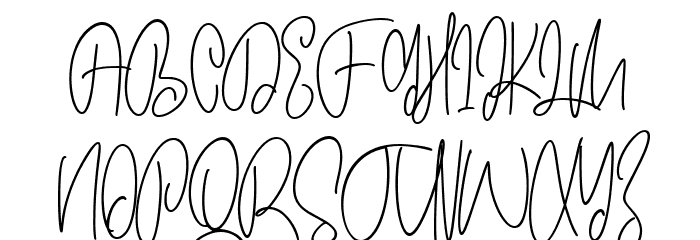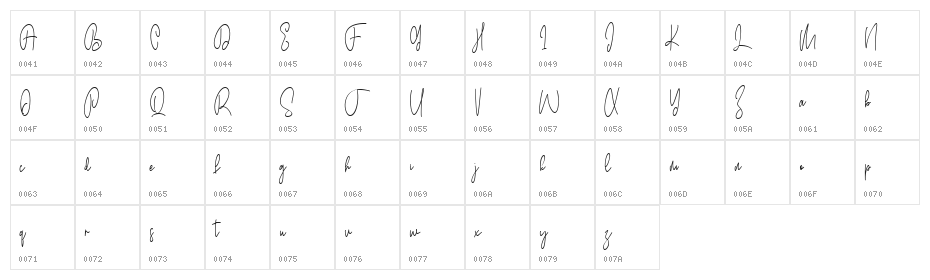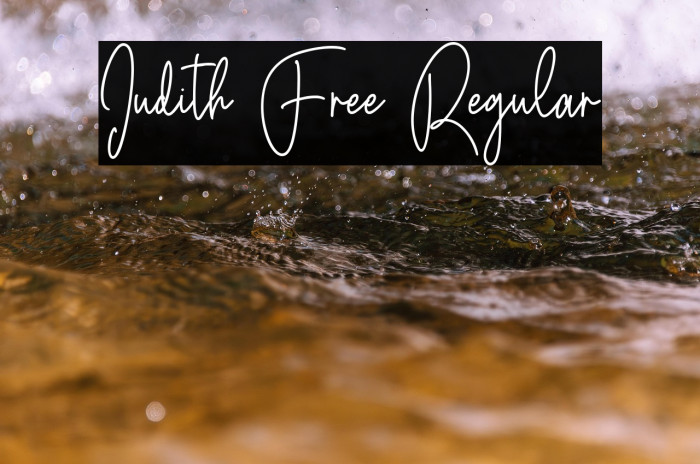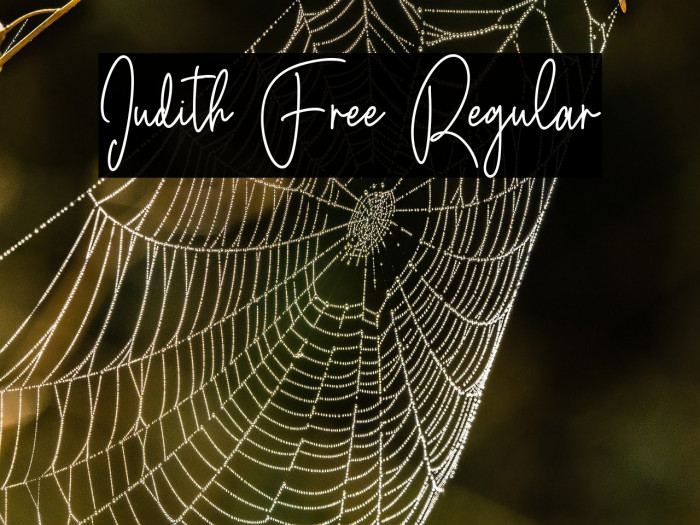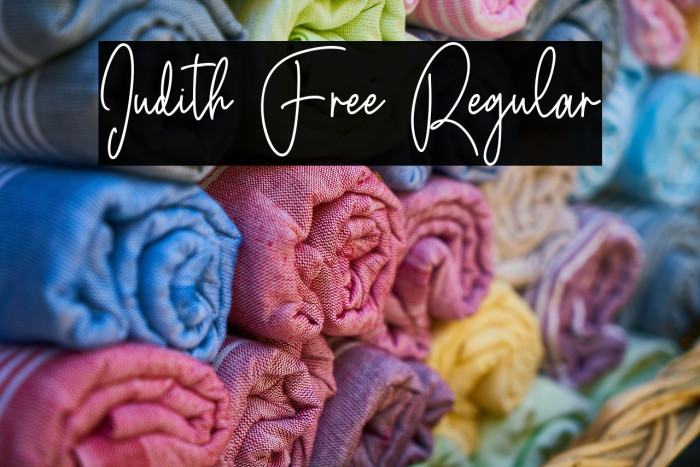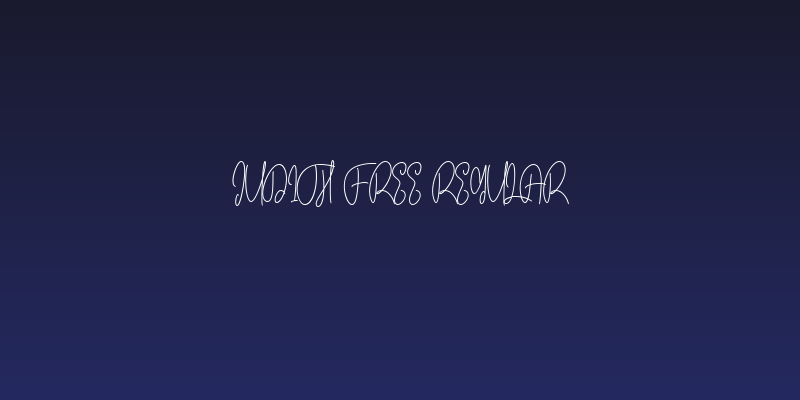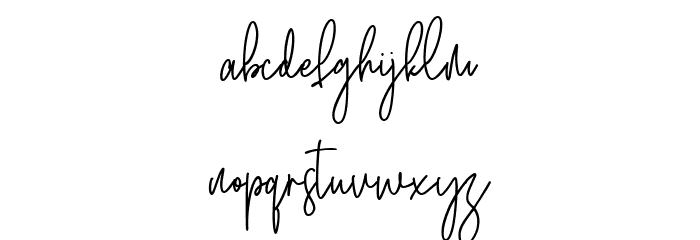
Judith Free Regular Font
Judith Free Regular Description
This font features an elegant and flowing script style, characterized by its smooth, continuous strokes and a handwritten aesthetic. The uppercase letters are bold and expressive, with a distinct flair that adds a touch of sophistication. The lowercase letters maintain a consistent flow, enhancing readability while preserving the artistic nature of the design. The overall appearance is both modern and classic, making it versatile for various design applications. The font's unique style is suitable for projects that require a personal touch, such as invitations, greeting cards, and branding materials.
| Proposed Projects | Ideal for wedding invitations, greeting cards, personal branding, and artistic projects. |